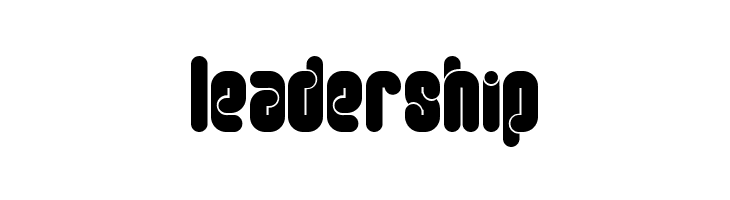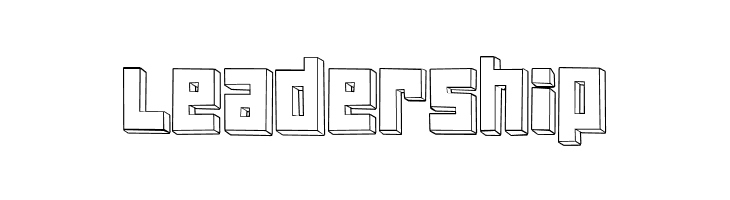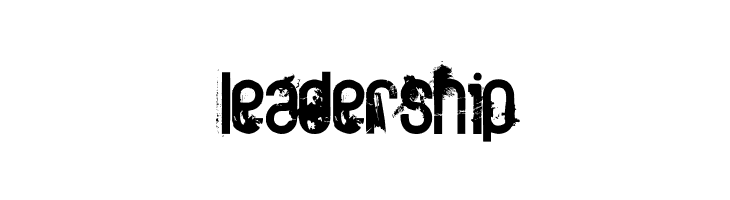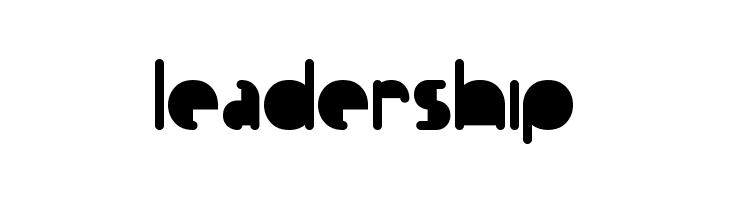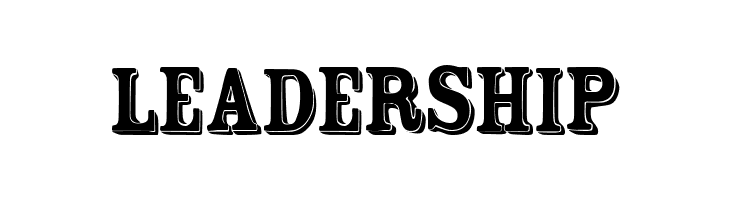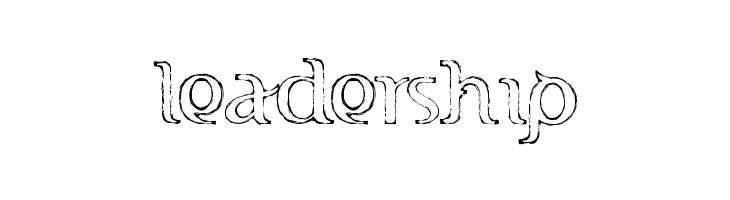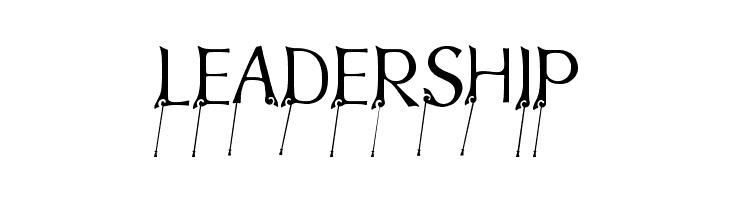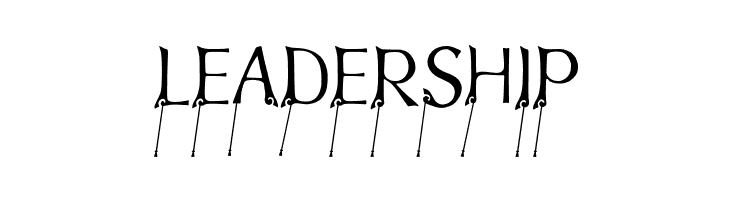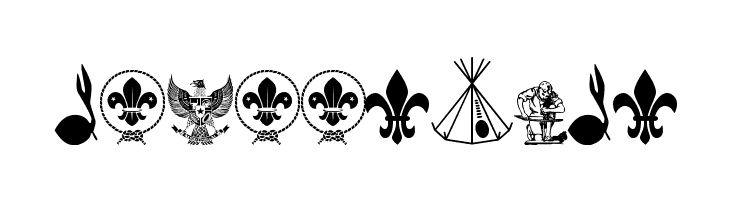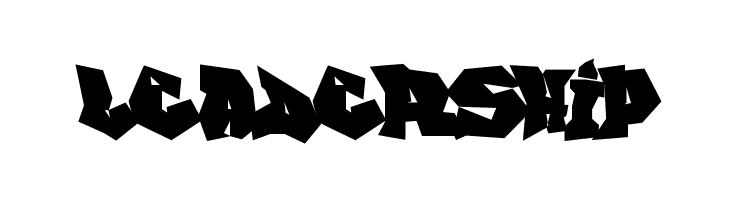
A bold, geometric font with a modern and playful design.
A bold, vintage-inspired serif font with strong, block-like serifs and a cohesive, decorative style.
A bold, rounded font with a modern and playful design.
A bold, rounded font with a modern and playful geometric style.
A bold, geometric font with a three-dimensional effect and tight spacing.
A bold, three-dimensional font with a geometric, architectural style.
A bold, distressed font with a grungy, textured appearance.
A distressed, grungy font with a chaotic, textured appearance.
A bold, distressed decorative font with a grunge aesthetic.
A bold, distressed font with a grunge aesthetic and geometric structure.
A modern, rounded font with cultural influences and smooth, flowing letterforms.
A mix of bold, modern, and decorative logotype fonts for branding.
A decorative font resembling tree branches with leaves, offering a natural and whimsical style.
An elegant, decorative font with artistic flourishes and a modern flair.
A bold, graffiti-inspired font with angular, dynamic characters.
A decorative font with vine-like embellishments and organic curves.
A bold, distressed font with a rugged, geometric design.
A collection of scout-themed icons with bold, illustrative designs.
A decorative serif font with elegant curves and modern flair.
An ornate, decorative font with intricate floral embellishments.
A textured, sketch-like serif font with a hand-drawn, artistic feel.
A sketch-style serif font with artistic and vintage elements.
A decorative font with leaf and vine embellishments, offering a whimsical, organic style.
A distressed, grunge-style font with a textured, vintage appearance.
A decorative font with floral and swirl embellishments.
An organic, vine-like decorative font with intricate details.
A decorative font inspired by vines and branches, featuring organic and intricate designs.
A decorative font with elegant, elongated serifs and intricate details.
A bold, angular graffiti-style font with sharp, jagged edges.